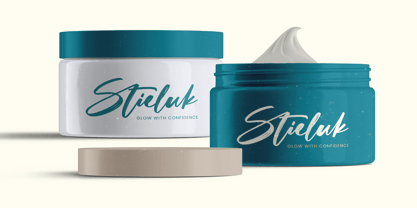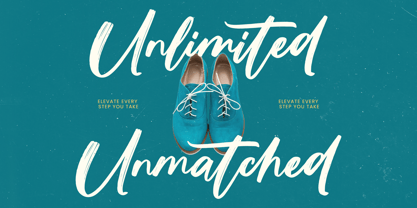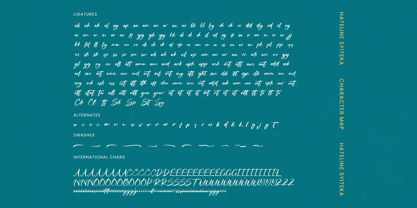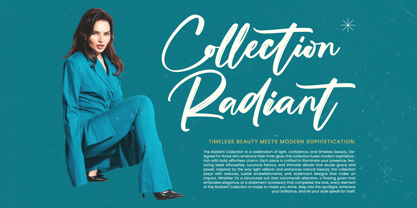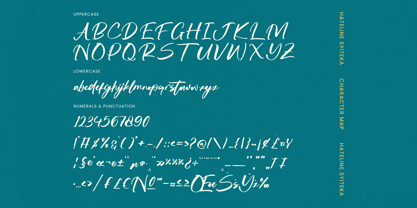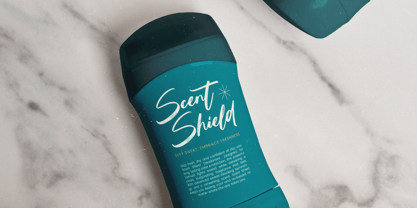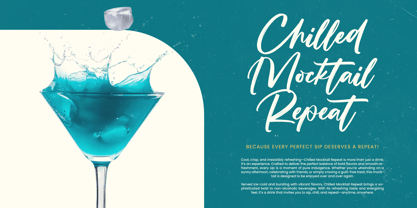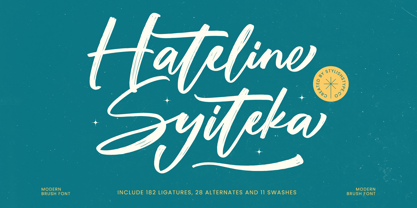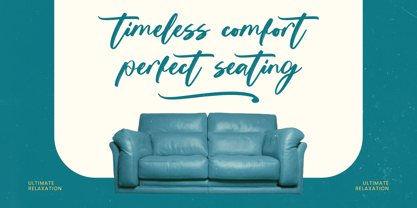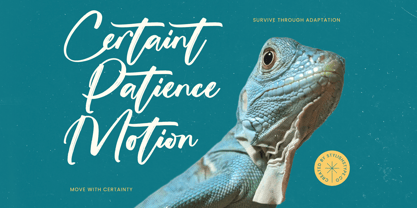
Hateline Syiteka
The Hateline Syiteka Font Family was designed by Heru Utama Putra and published by Stylishtype Studio. Hateline Syiteka contains 2 styles and family package options. More about this family
Hateline Syiteka - Modern Brush Font , from Stylishtype, Suitable for any projects such as: logos, branding projects, homeware designs, product packaging, mugs, quotes, posters, shopping bags, t-shirts, book covers, name card, invitation cards, greeting cards, label, photography, watermark, special events, and all your other luxury and beautiful projects that need a Luxury Script taste.